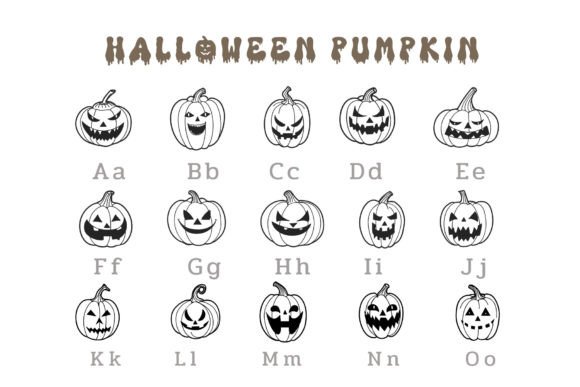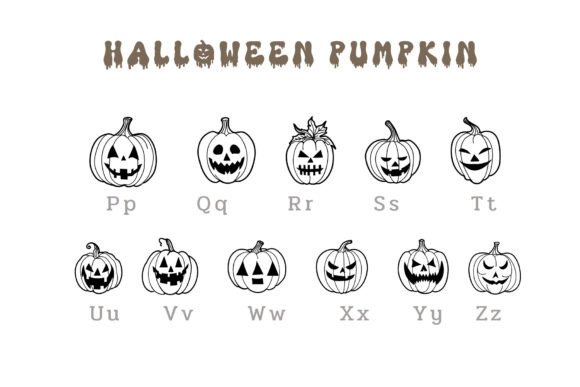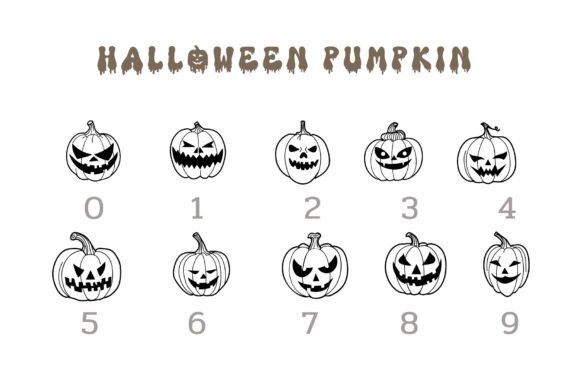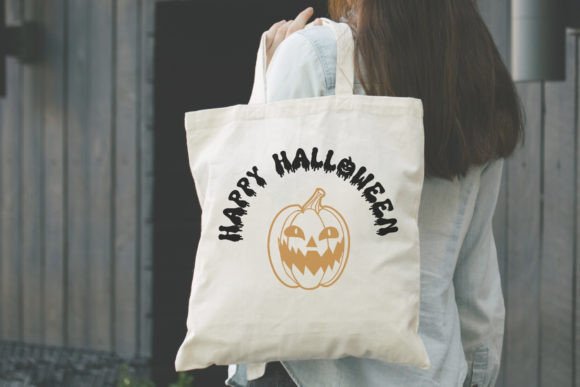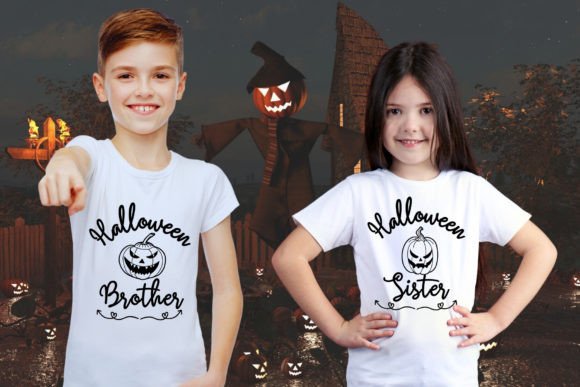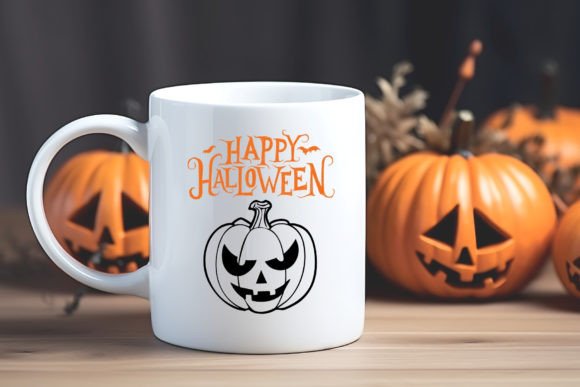
Halloween Pumpkin Doodle Font: Add a Spooky Touch to Your Designs
Are you looking for a unique and playful way to add a spooky touch to your Halloween designs? Look no further than the Halloween Pumpkin Doodle Font! This fun dingbat font features a collection of pumpkins with different ghost faces, perfect for adding a touch of whimsy and eeriness to your projects.
What is the Halloween Pumpkin Doodle Font?
The Halloween Pumpkin Doodle Font is a special type of font that features a pumpkin with a different ghost face for each character. This means that every time you type a letter or symbol, a new and unique pumpkin design appears. The font is perfect for designers, crafters, and anyone looking to add a personal touch to their Halloween designs.
Features of the Halloween Pumpkin Doodle Font
- Unique Pumpkin Designs: Each character in the font features a unique pumpkin design with a different ghost face.
- Playful and Spooky: The font is perfect for adding a playful and spooky touch to your Halloween designs.
- Dingbat Font: The font is a dingbat font, which means that each character is a graphical symbol rather than a traditional letter or number.
Uses for the Halloween Pumpkin Doodle Font
The Halloween Pumpkin Doodle Font is perfect for a variety of uses, including:
- Halloween Cards and Invitations: Add a spooky and playful touch to your Halloween cards and invitations.
- Social Media Graphics: Use the font to create spooky and eye-catching social media graphics.
- Halloween Crafts: The font is perfect for crafters who want to add a personal touch to their Halloween crafts, such as pumpkin decorations and Halloween-themed scrapbook pages.
- Signs and Banners: Use the font to create spooky and eye-catching signs and banners for your Halloween party or event.
Tips for Using the Halloween Pumpkin Doodle Font
Here are a few tips for using the Halloween Pumpkin Doodle Font:
- Experiment with Different Sizes: Experiment with different font sizes to create a unique and eye-catching design.
- Combine with Other Fonts: Combine the Halloween Pumpkin Doodle Font with other fonts to create a unique and interesting design.
- Use with Images: Use the font with images of pumpkins, ghosts, and other Halloween-themed images to create a spooky and eye-catching design.
The Halloween Pumpkin Doodle Font is a fun and unique way to add a spooky and playful touch to your Halloween designs. With its collection of pumpkins with different ghost faces, this font is perfect for designers, crafters, and anyone looking to add a personal touch to their Halloween projects. So why not give it a try and see what spooky and creative designs you can come up with?